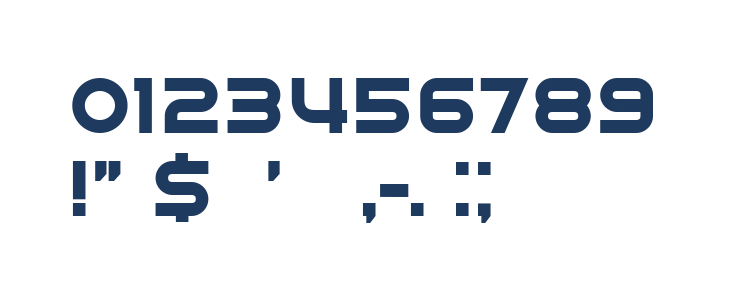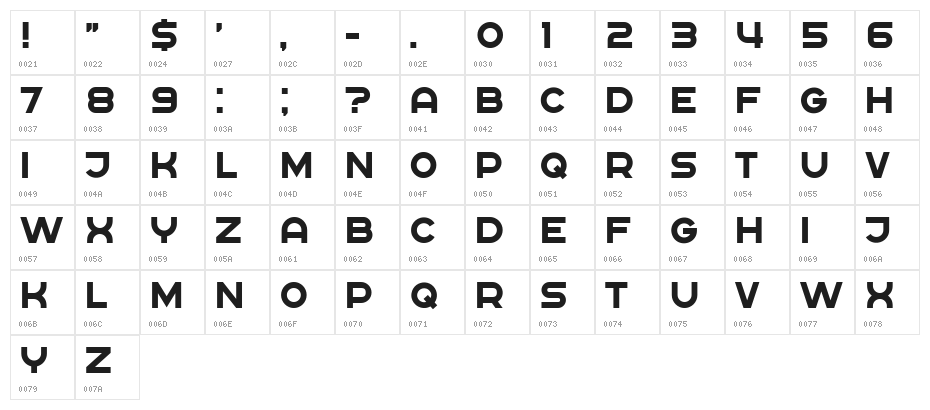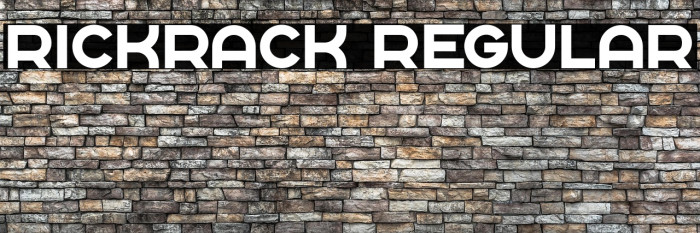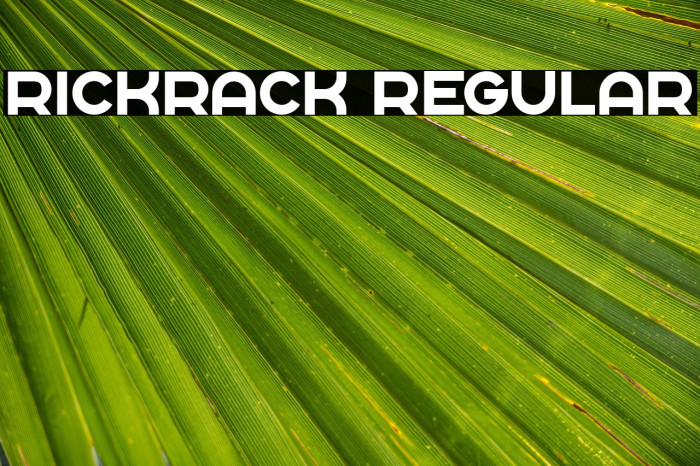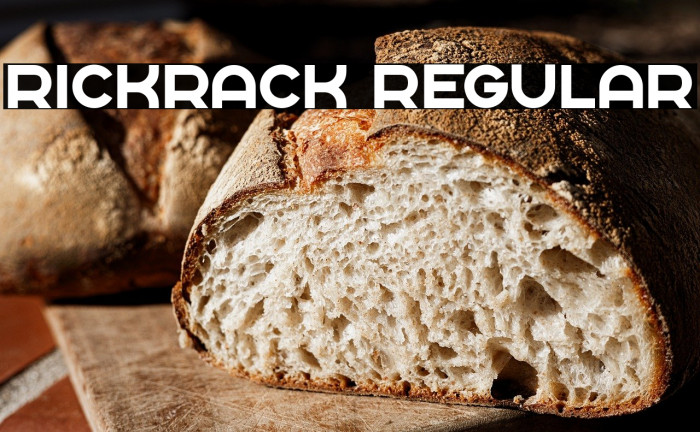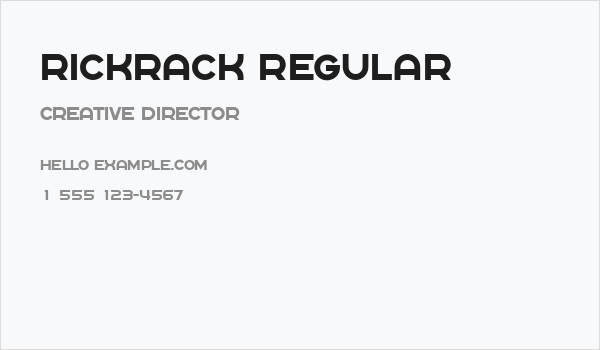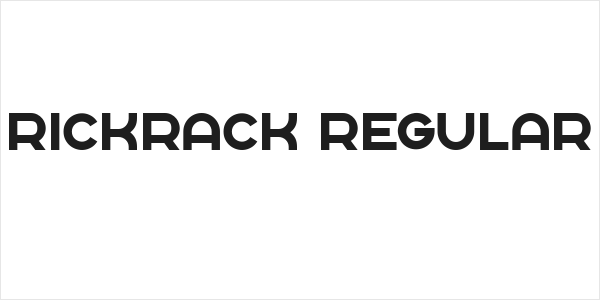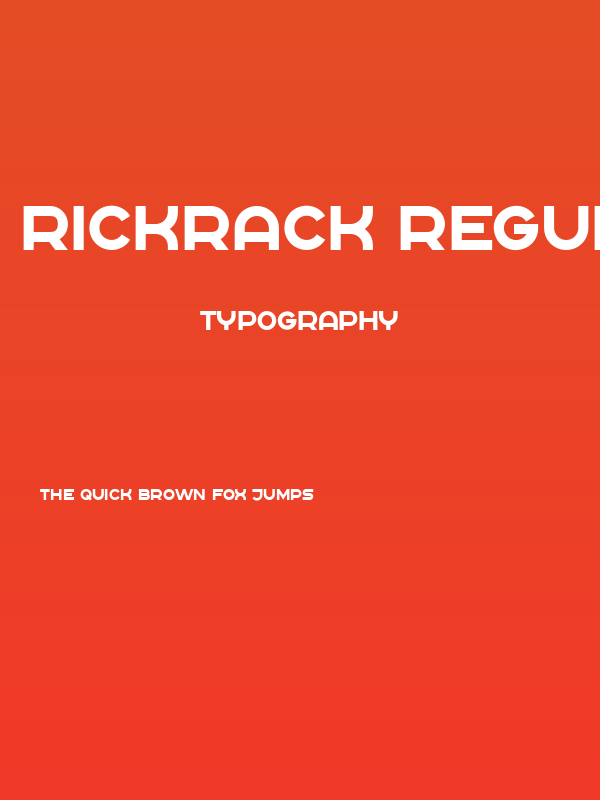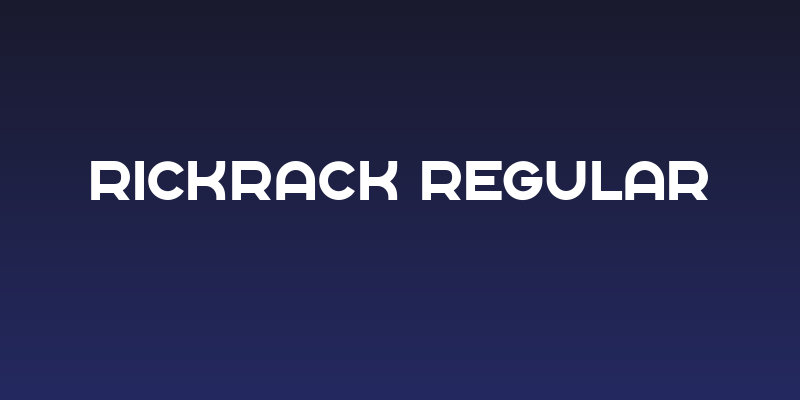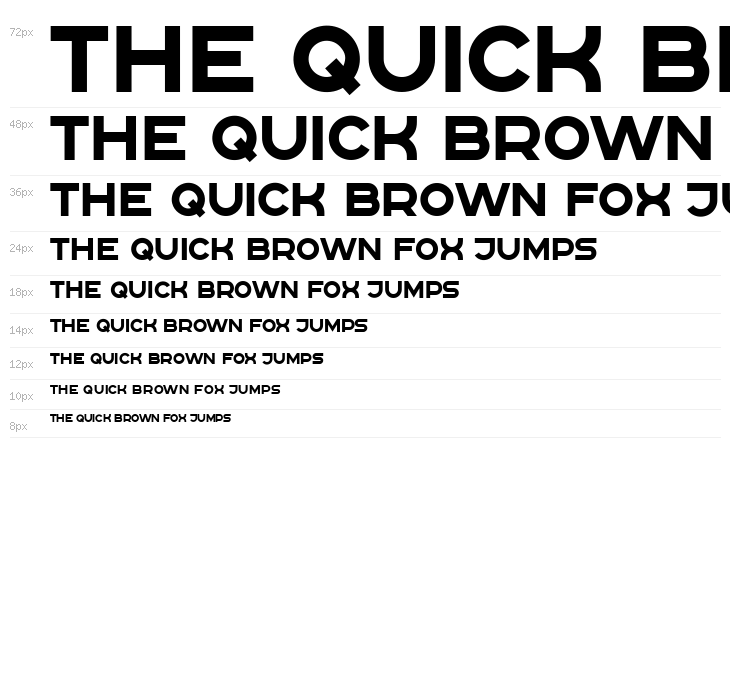
Rickrack Regular Font
Rickrack Regular Description
This font features a bold, geometric design with a modern and futuristic appeal. The characters are constructed with thick, uniform strokes that create a strong visual impact. The angular and blocky shapes give it a distinctive, industrial feel, making it stand out in any design. The uppercase letters are particularly striking, with their sharp edges and clean lines. The numerals and special characters maintain the same boldness and clarity, ensuring consistency across all text elements. This font is ideal for projects that require a strong, contemporary look.
| Proposed Projects | Ideal for branding, posters, headlines, and digital interfaces that require a strong, modern aesthetic. |